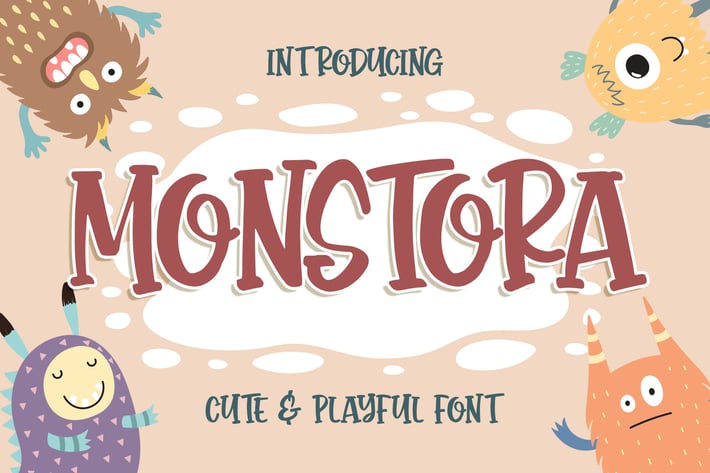
Monstora Cute & Playful Font
Introducing of our new product the name is Monstora Cute & Playful Font. Monstora inspired by quirky calligraphy this font is a fun theme very good for display, halloween, kids, valentine theme, wedding, logotype and etc